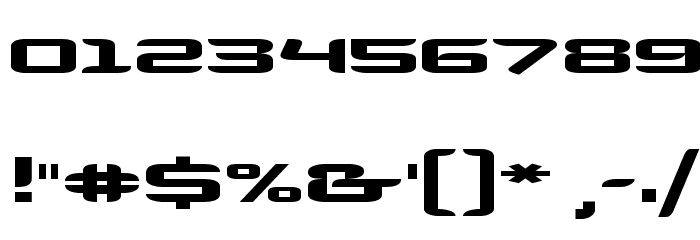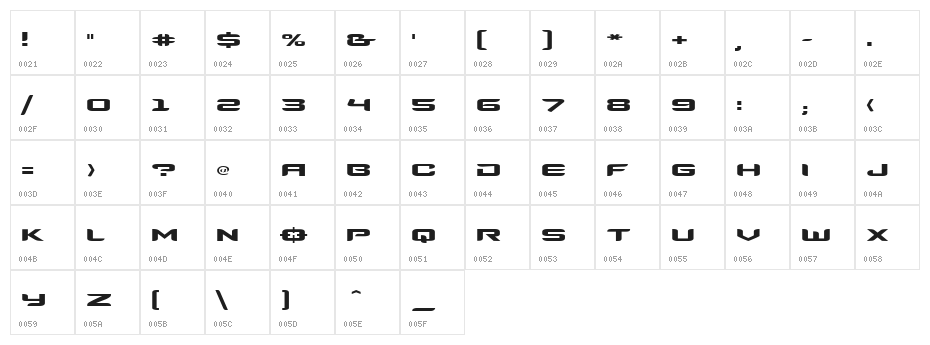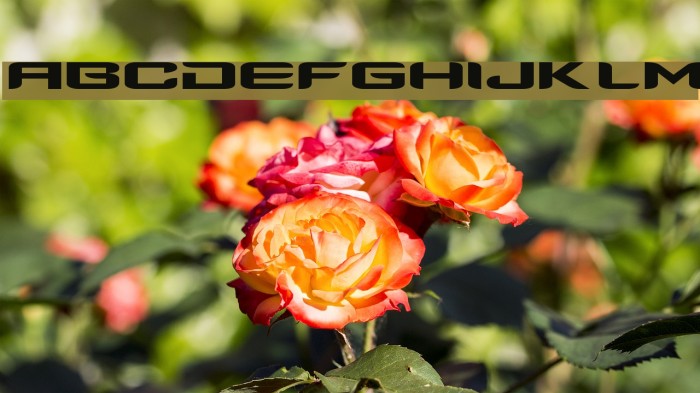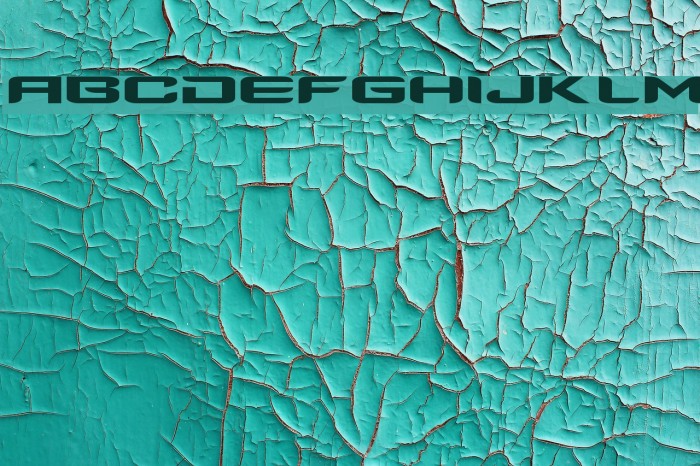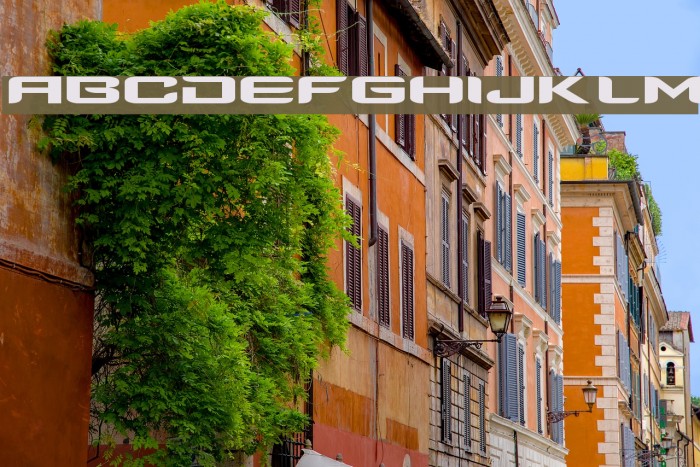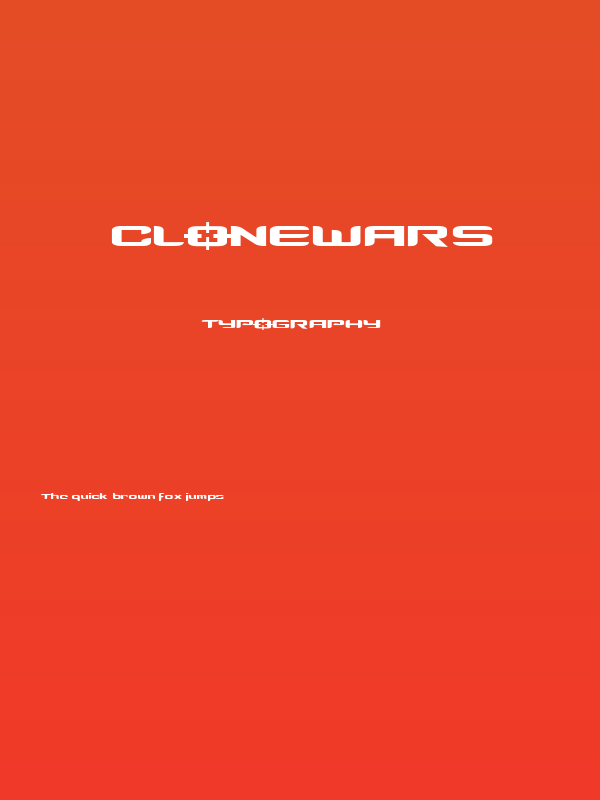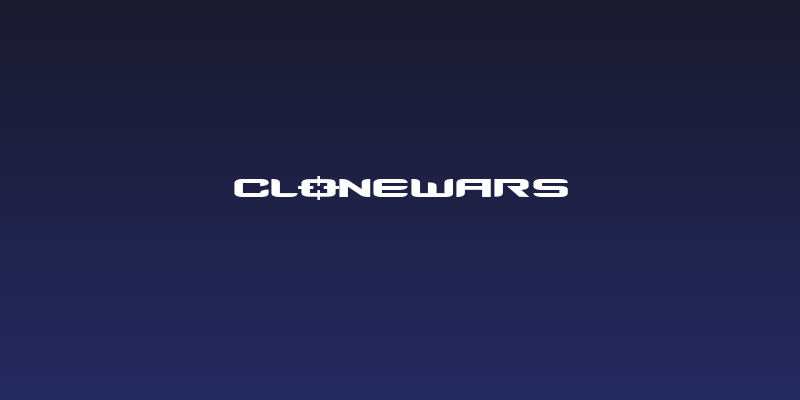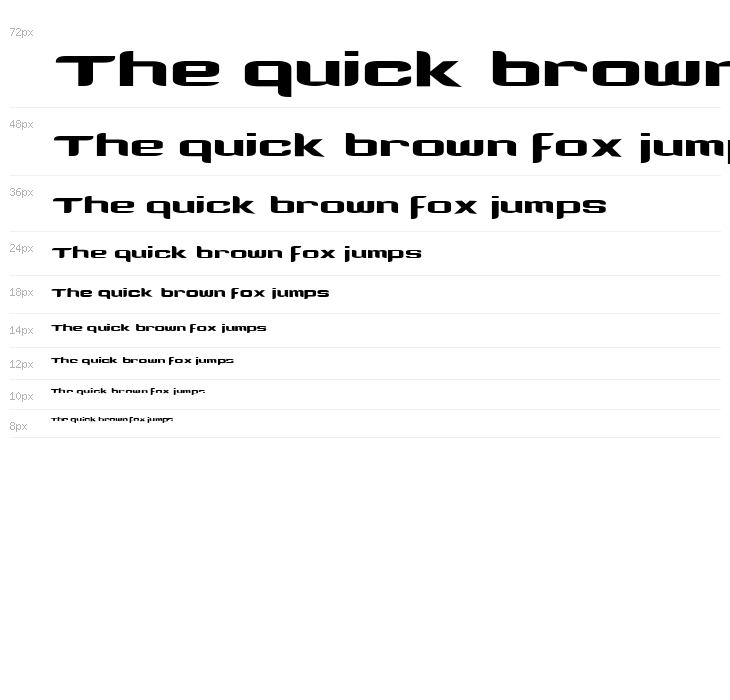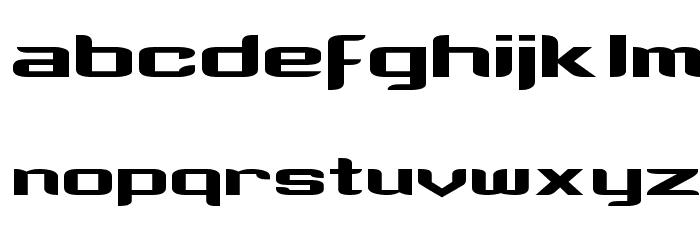
CloneWars Font
CloneWars Description
This font features a futuristic and bold design with a distinctive geometric style. The characters are wide and have a unique, angular appearance, giving them a modern and technological feel. The uppercase letters are particularly striking, with sharp edges and a consistent height that creates a cohesive look. The lowercase letters maintain the same angular style, ensuring readability while adding a touch of uniqueness. Numbers and special characters are designed to match the overall aesthetic, making them suitable for various applications. The font's boldness and distinctiveness make it ideal for attention-grabbing designs.
| Proposed Projects | Ideal for sci-fi themed projects, video game titles, tech branding, and futuristic posters. |